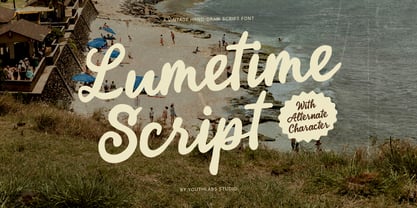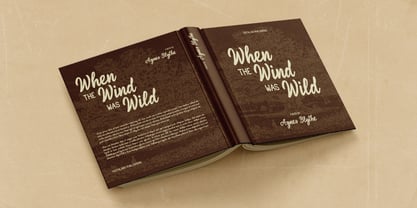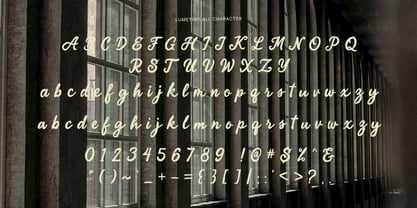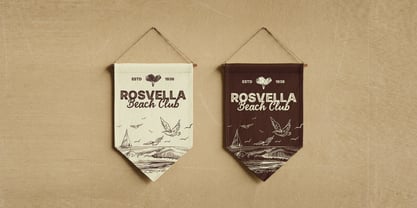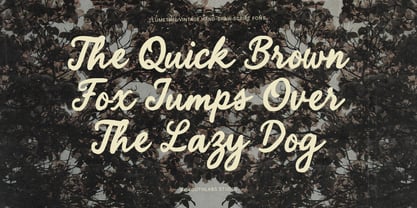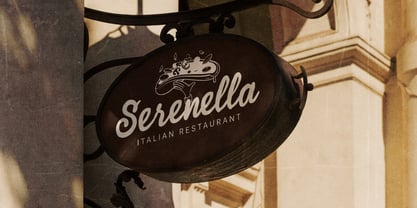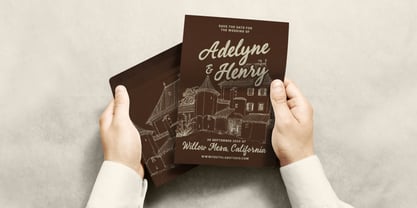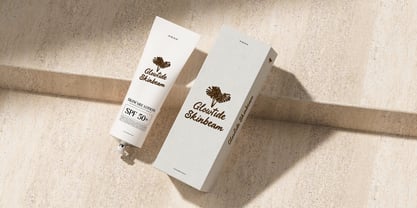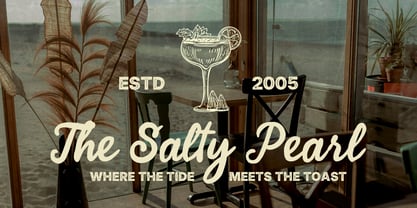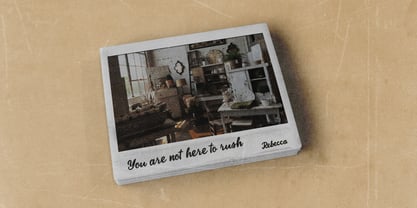
Limetime
von Youthlabs
Die Schriftfamilie Limetime wurde von Fathi Al Ghazi entworfen und von Youthlabs veröffentlicht. Limetime enthält 1 Stile. Mehr über diese Familie
Lumetime Script is a hand-drawn vintage script font that captures the sun-soaked charm of nostalgic beach holidays. With its smooth curves and breezy strokes, this typeface evokes memories of handwritten postcards, coastal cafés, and endless summer skies. Ideal for retro branding, travel posters, or laid-back packaging, Lumetime Script brings a wave of warmth and personality to your designs. Complete with alternate characters for added flair, it’s perfect for anyone looking to make their typography feel both heartfelt and handcrafted.
Designer: Fathi Al Ghazi
Foundry: Youthlabs